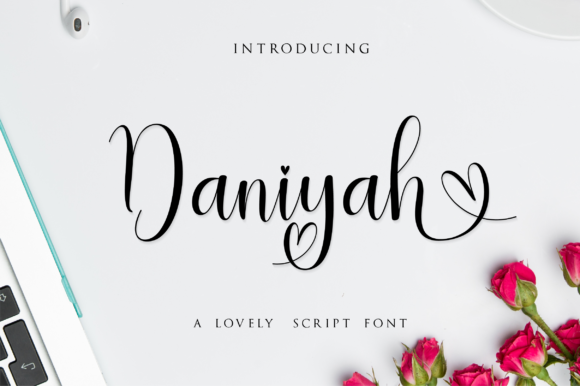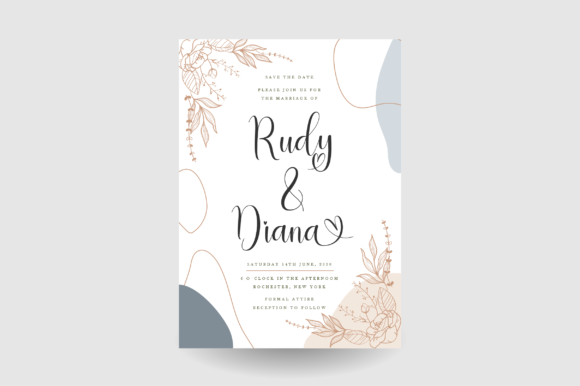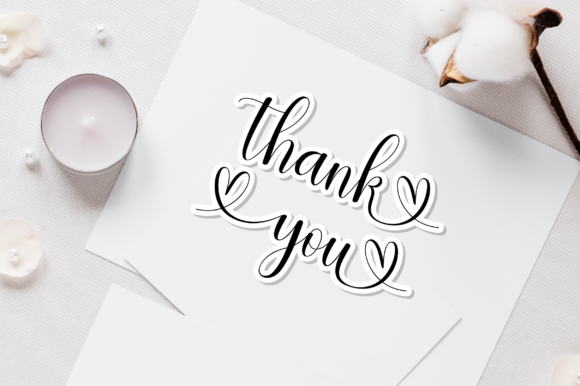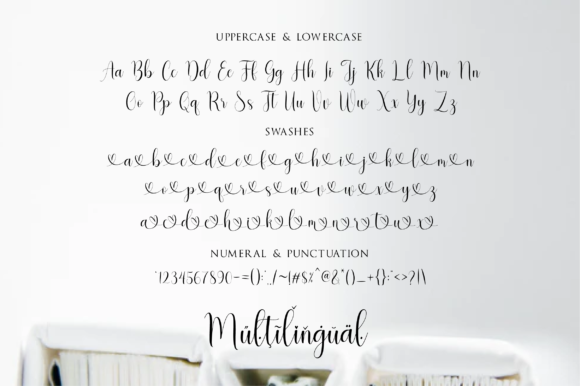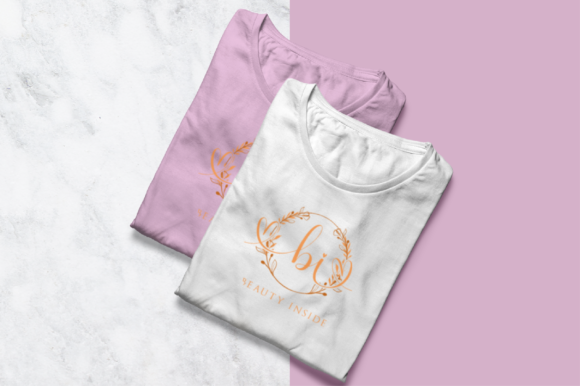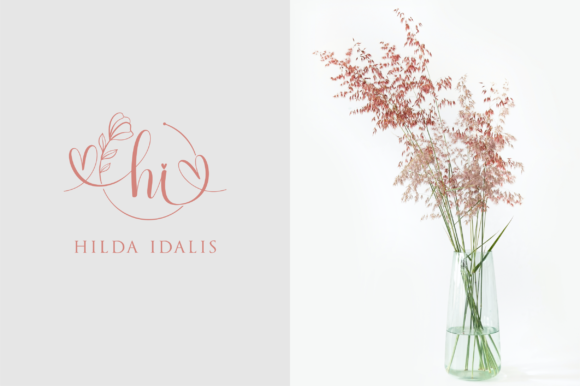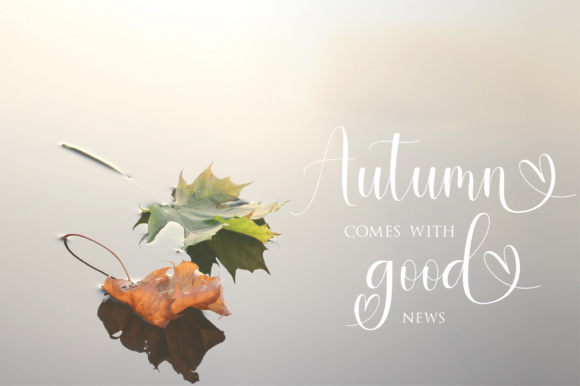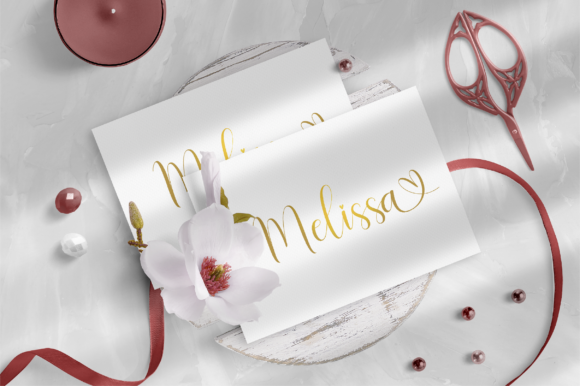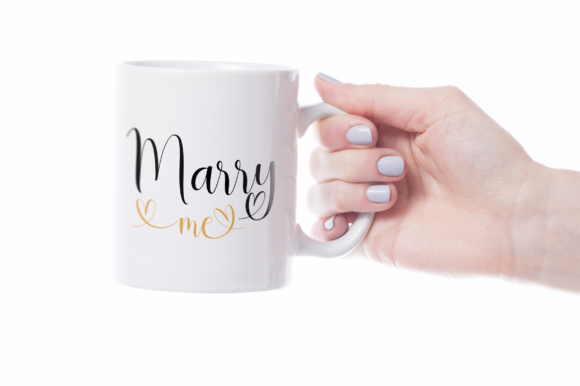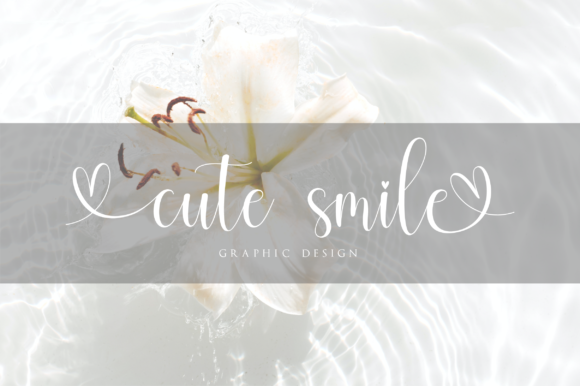
Daniyah Font
About Daniyah Font
Daniyah is a delicate, elegant and incredibly sweet handwritten font. It is PUA encoded which means you can access all of the glyphs and swashes with ease! It features a varying baseline, smooth lines, gorgeous glyphs and stunning alternates. Fall in love with its versatile style and use it to create spectacular designs!